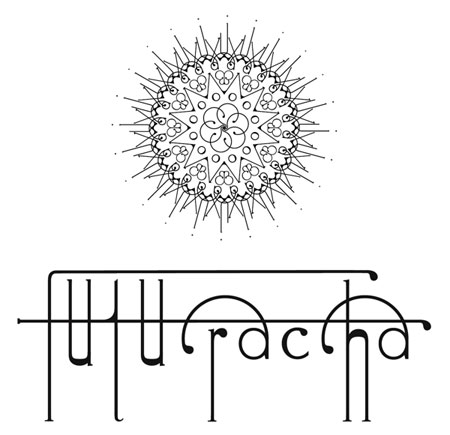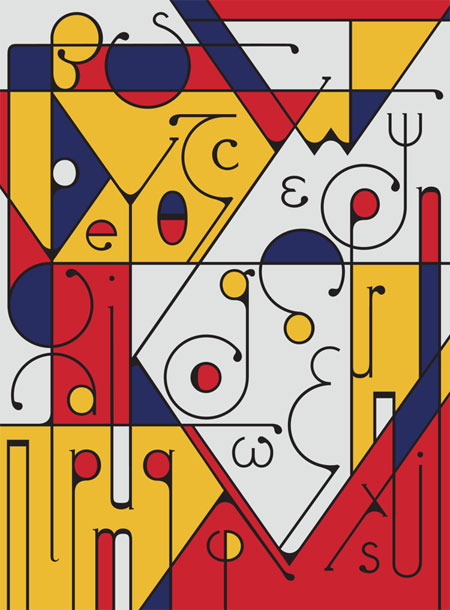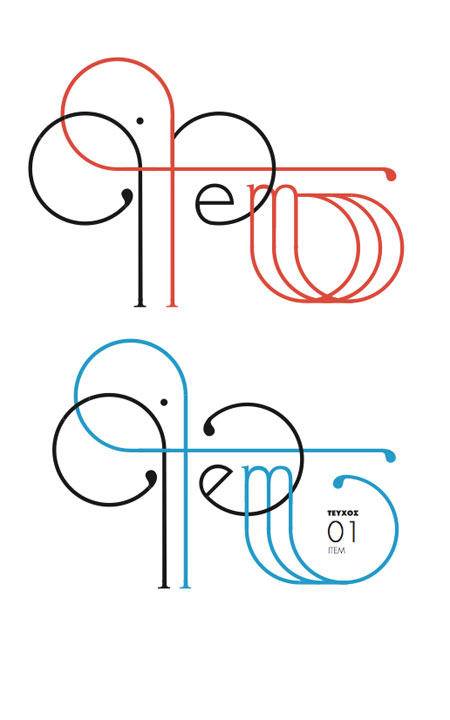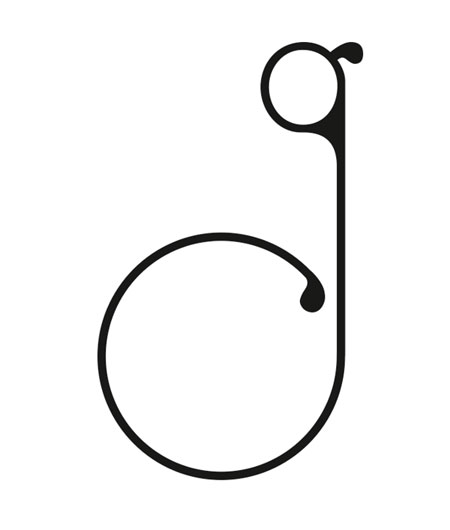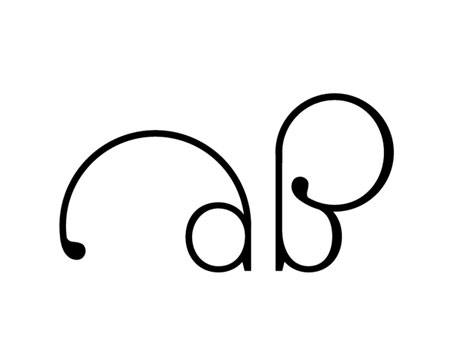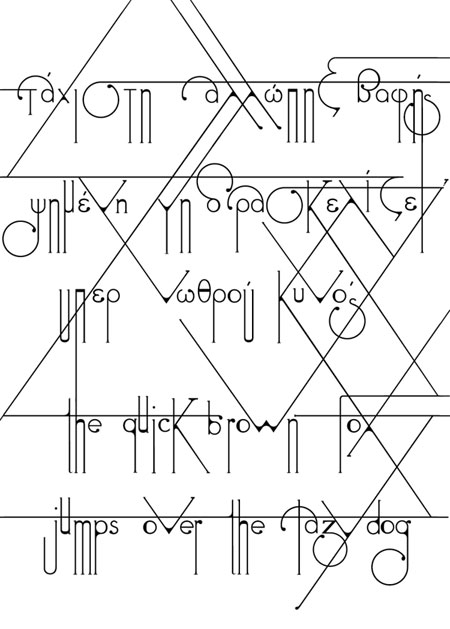
Greek graphic design student Odysseas Galinos shared one of his font experiments: Futuracha. You can download this great display font on the dedicated page.